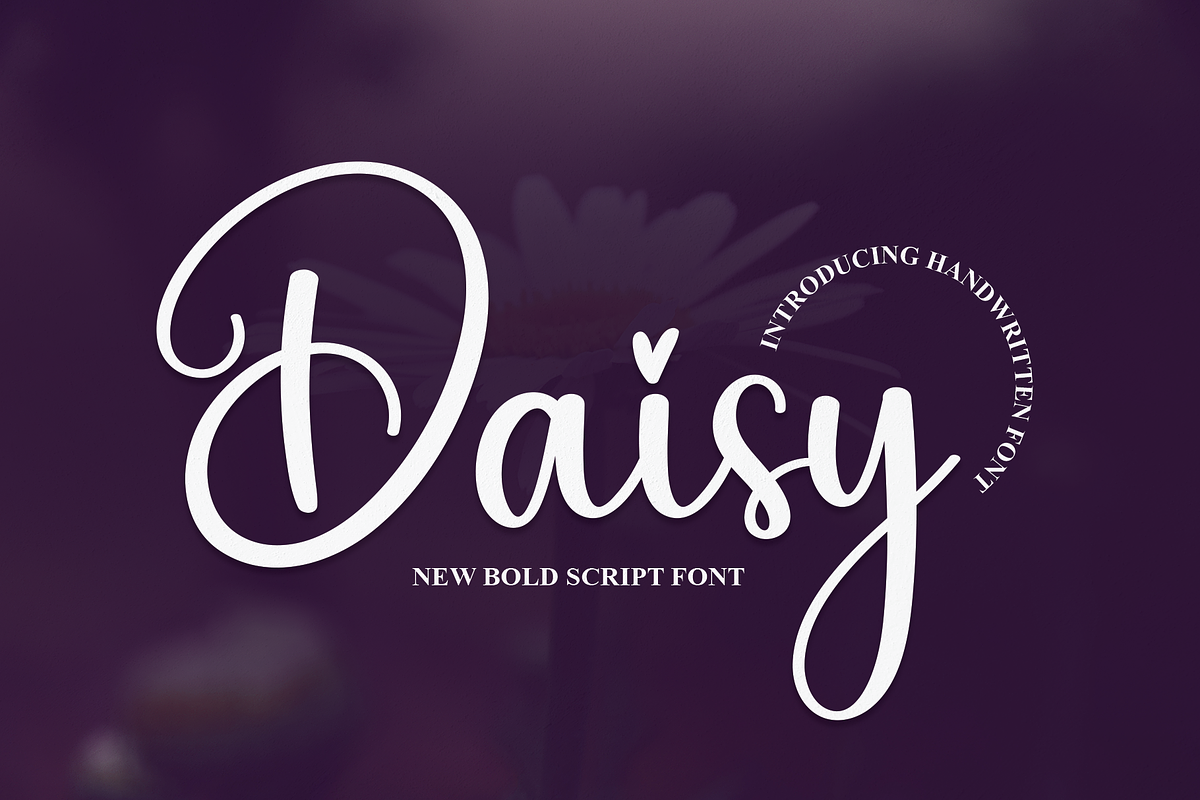
Daisy Script Font Free Download is an elegant, flowing script typeface that brings a soft, personal touch to your designs. With its beautiful curves, stylish swashes, and graceful letterforms, this font is perfect for wedding invitations, branding, social media quotes, logos, and any project that needs a touch of sophistication and charm.
Its delicate and friendly appearance makes it perfect for both formal and casual designs. Whether you're creating romantic stationery, an elegant logo, or a heartfelt greeting card, Daisy Script Font Free Download adds a handwritten, authentic feel to your typography.